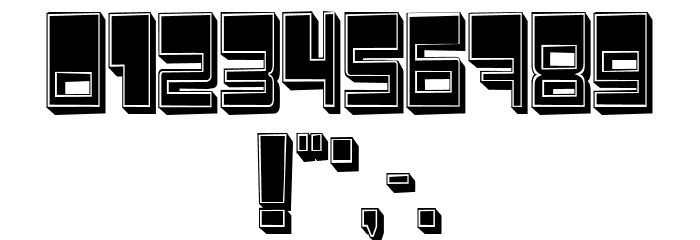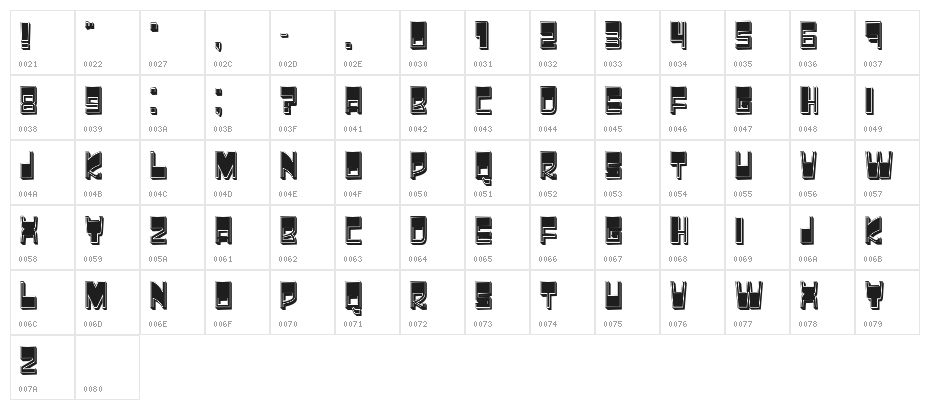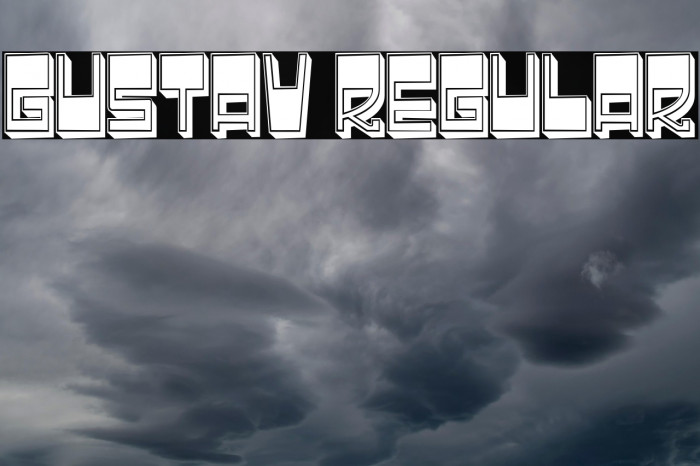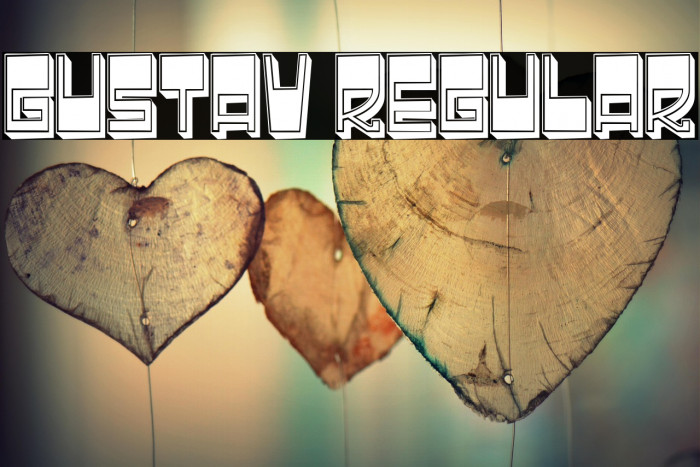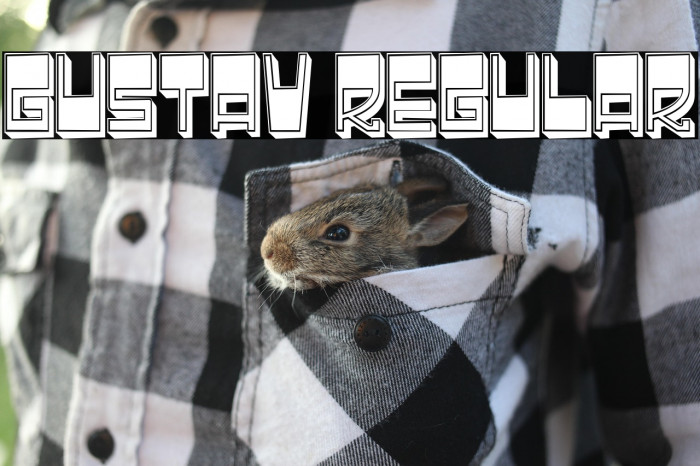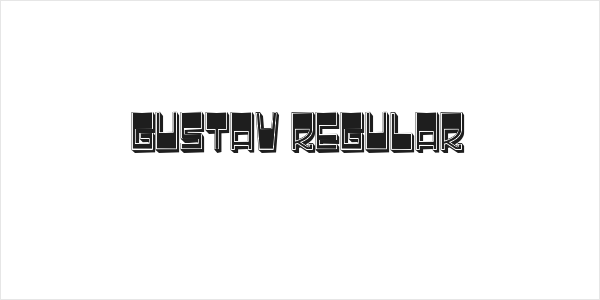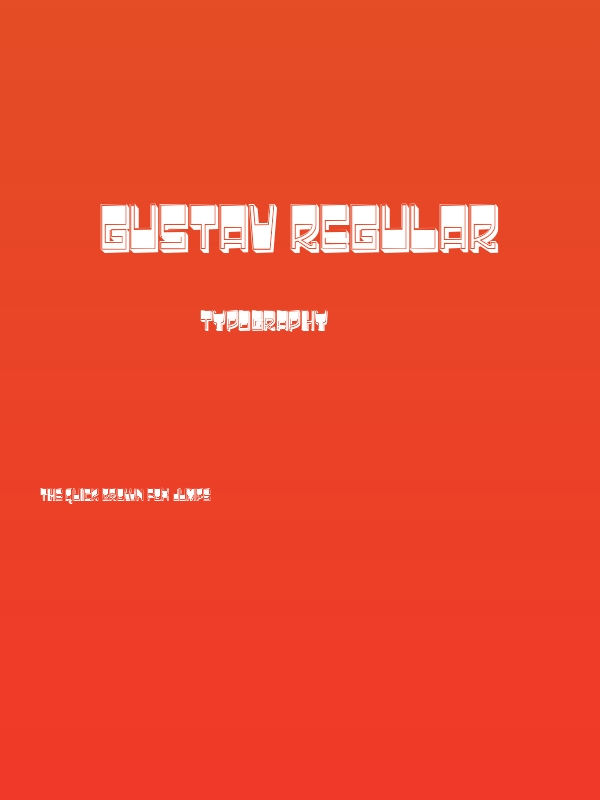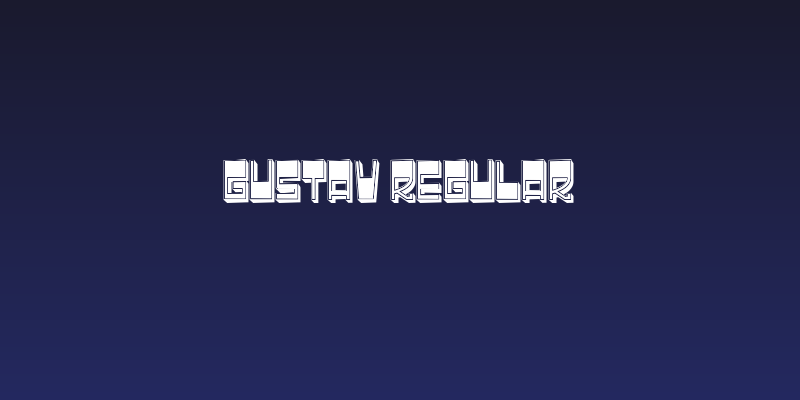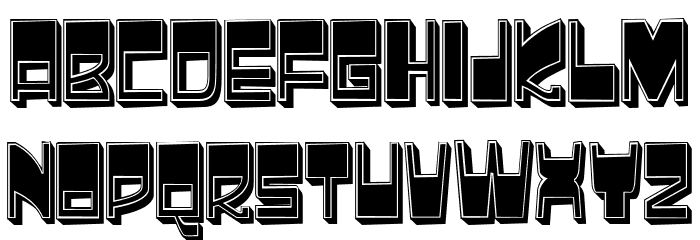
Gustav Regular Font
Gustav Regular Description
This font features a bold, geometric design with a three-dimensional effect, achieved through the use of thick outlines and shadowing. The characters are blocky and angular, giving them a strong, impactful presence. The uppercase and lowercase letters maintain a consistent style, with sharp edges and uniform thickness. The numerals and special characters follow the same design principles, ensuring a cohesive look across all elements. This font's unique style makes it stand out, ideal for eye-catching designs.
| Proposed Projects | Ideal for posters, logos, video game graphics, and any project requiring a bold, standout typeface. |